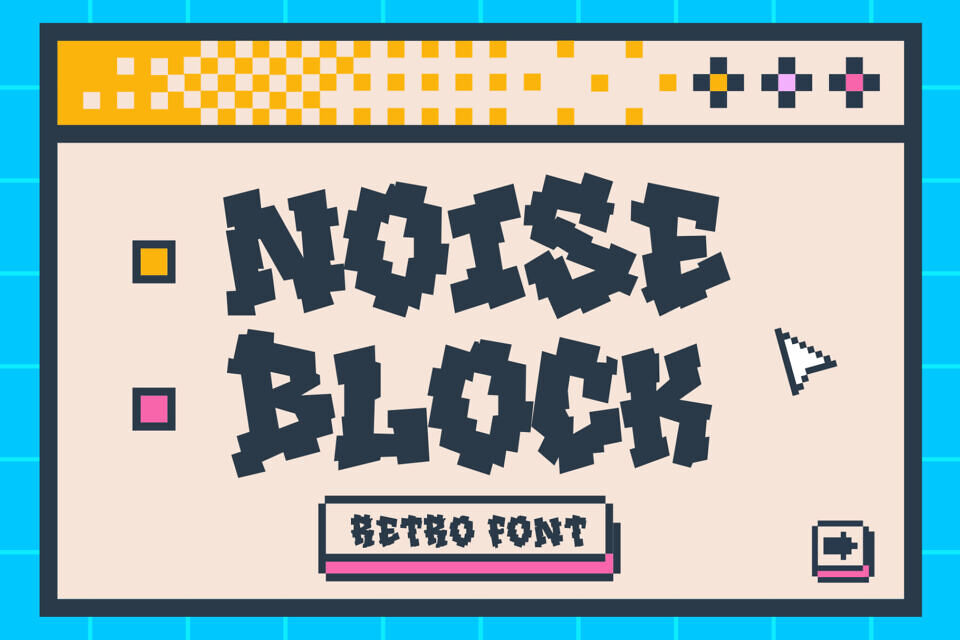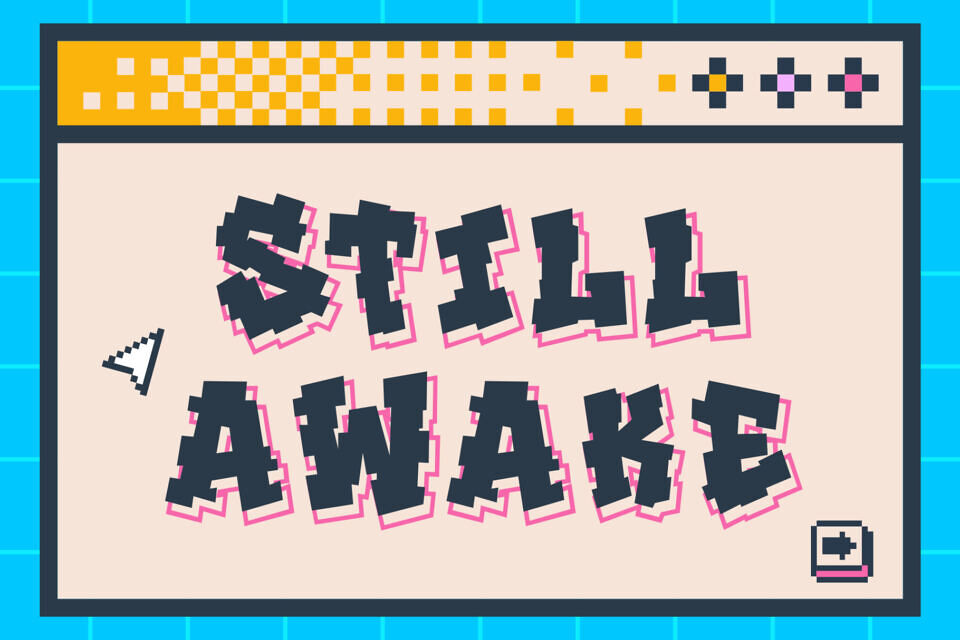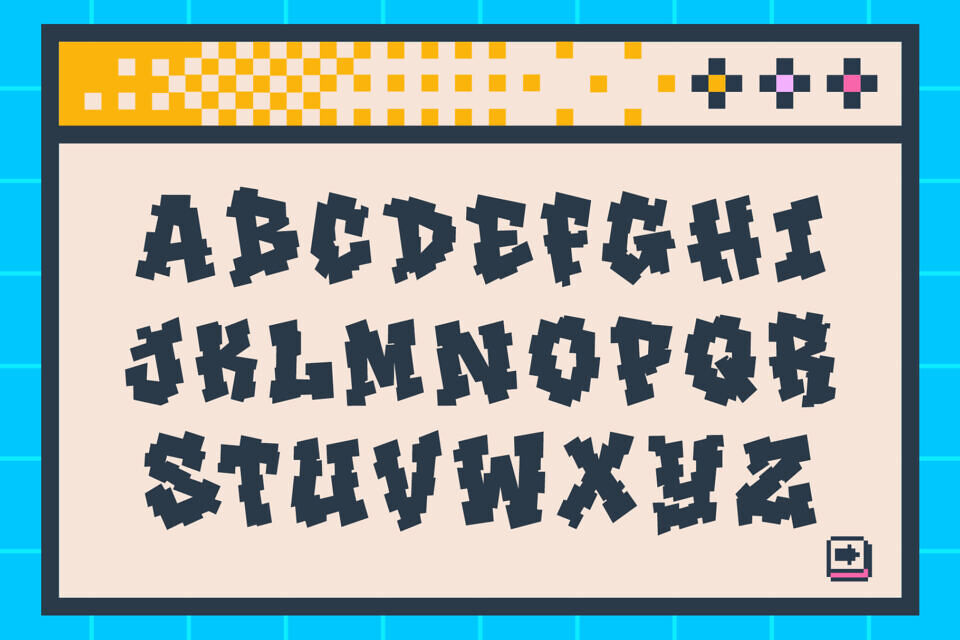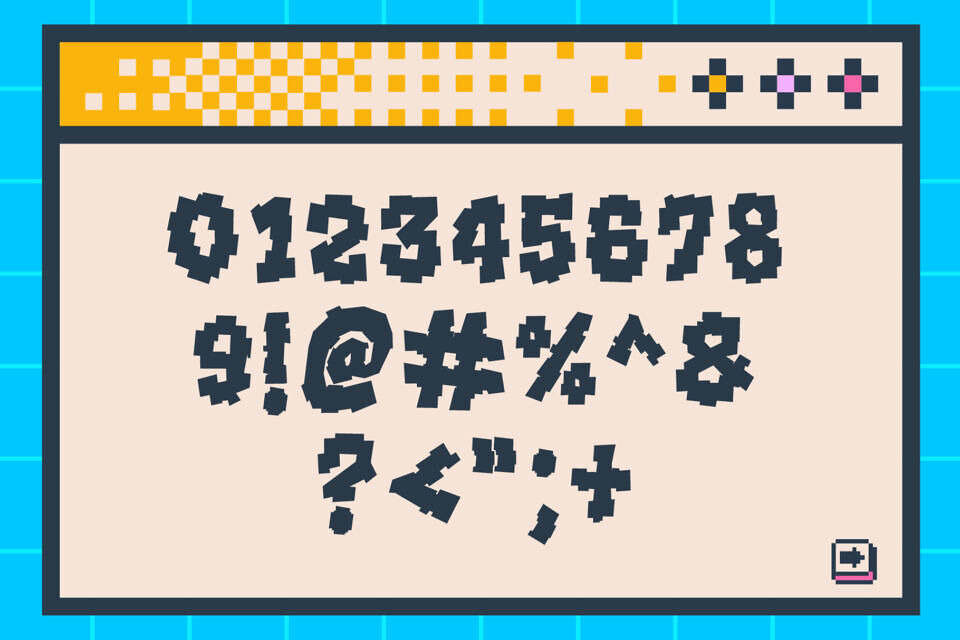
Noise Block is a striking, free pixelated retro font that perfectly fuses 8-bit nostalgia with bold graffiti energy. Created by Muhammad Panji Ramdhani, this all-caps display typeface features jagged, irregular block forms and a glitchy, edgy style, making it an excellent choice for modern streetwear, music, and gaming design projects.
Use this unique font to give your posters, logos, and merchandise a distinct, urban digital aesthetic and rebellious charm.